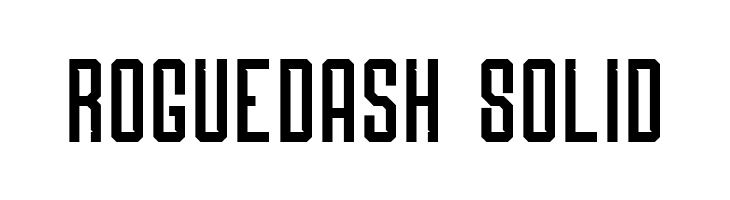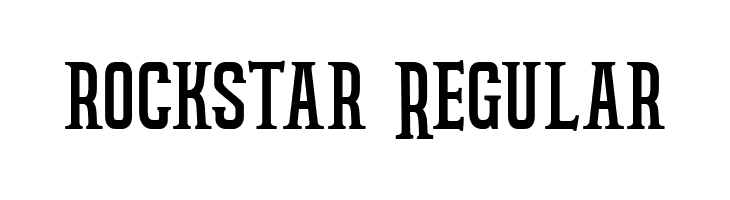
A bold, serif font with elongated serifs and a commanding presence.
A bold, textured font with an edgy, hand-drawn style.
A dynamic, fluid handwritten font with smooth, flowing strokes.
A bold, brush-style font with dynamic, expressive strokes.
A bold, dynamic script font with flowing, cursive letterforms.
A bold, rugged font with a hand-carved, stone-like appearance.
A playful, handwritten script font with fluid, connected letters.
A bold, dynamic script font with a handwritten, energetic style.
A lively and flowing script font with smooth, continuous strokes.
A modern, playful font with geometric and rounded elements.